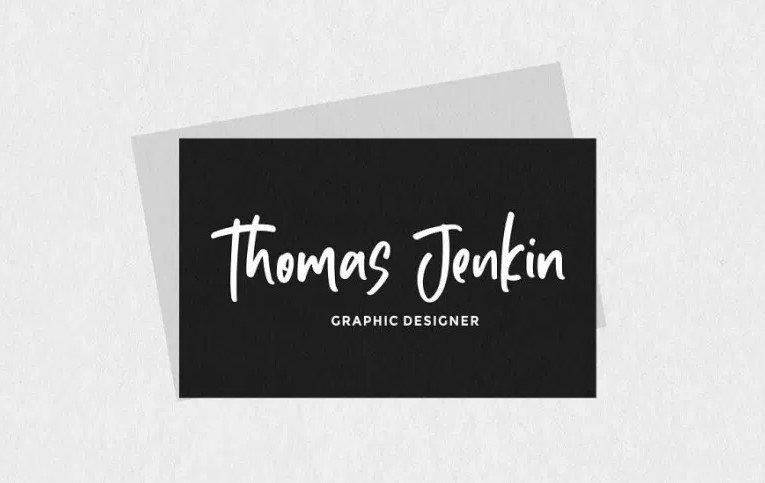
Big Points Font
About Big Points Font
Introducing the perfect slim and smart texture which is Big Points Font which is the great and awesome signature touch typeface that is perfectly fine for all kinds of great and best works.
This is one of the top typefaces which uses around the world. You can take out the best features of this typeface is providing for free and make any work profitable, attractive, and unique.